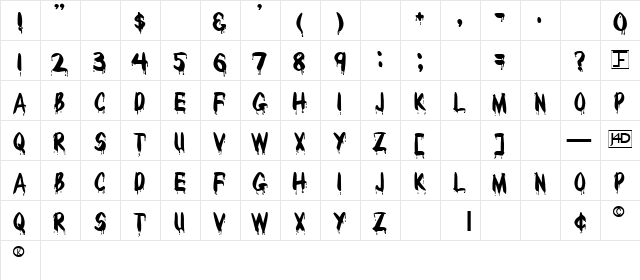
Bloody Normal
Design Context for Bloody Typeface
Bloody carries an unsettling edge — its distorted letterforms are built to unsettle, perfectly suited to horror, Halloween, and dark creative work.
Perfect for anything that needs to unsettle — game titles, horror branding, and macabre invitations.
Font Pairing: Pair with a clean neutral sans-serif for body copy to let Bloody's character lead without overwhelming the composition.
Pro Tip: Use Bloody at larger display sizes for maximum impact. Consider generous tracking to let the disturbing character of each letterform breathe.